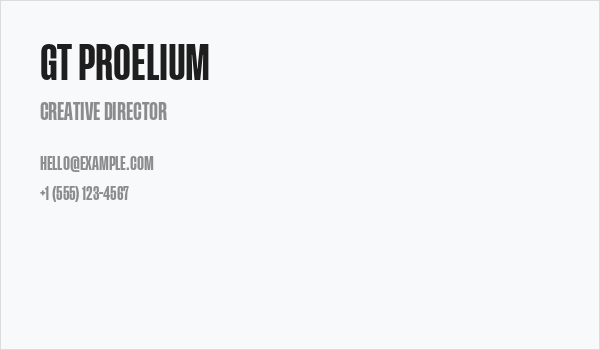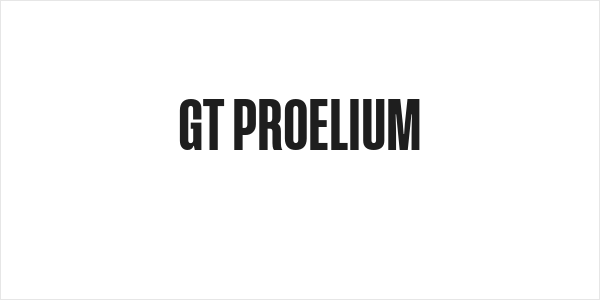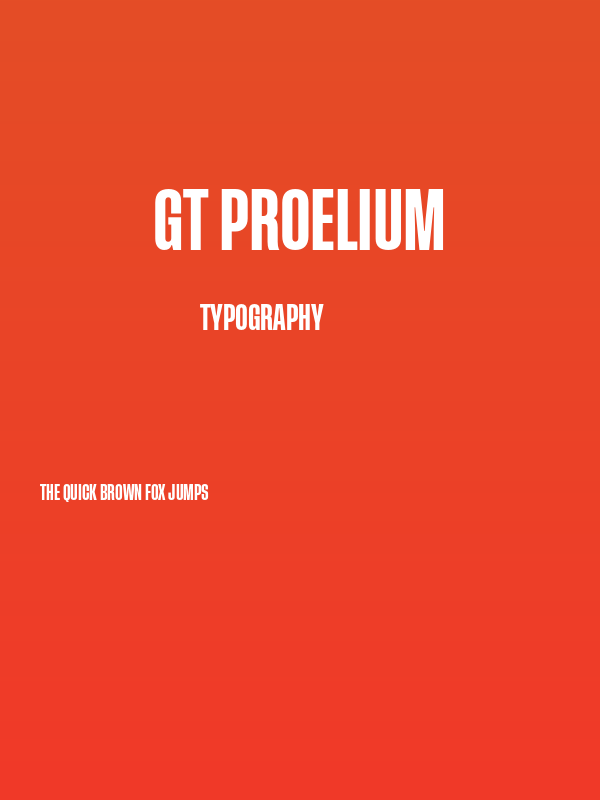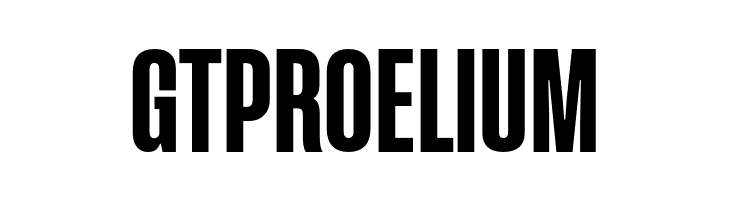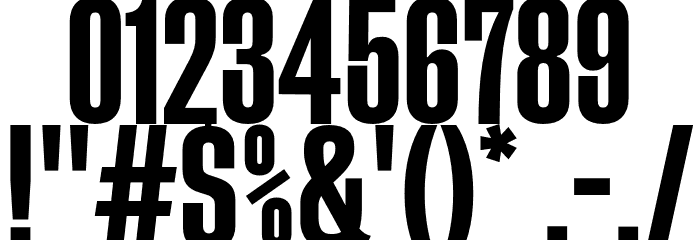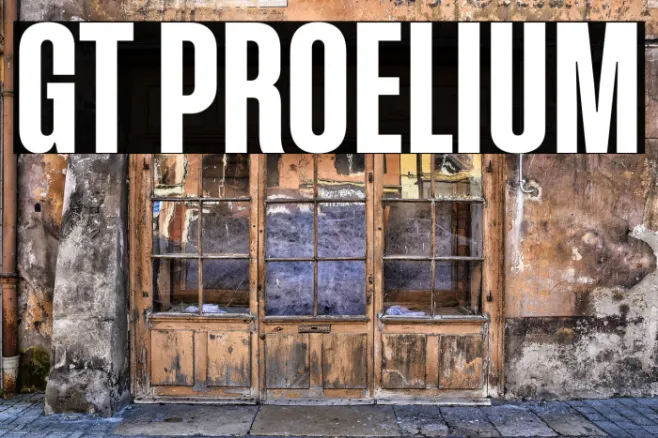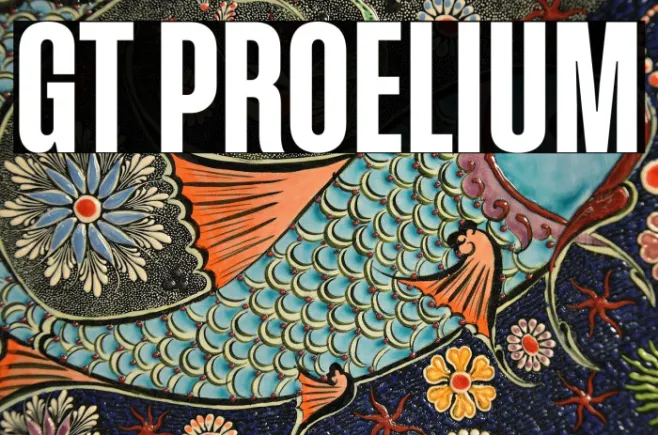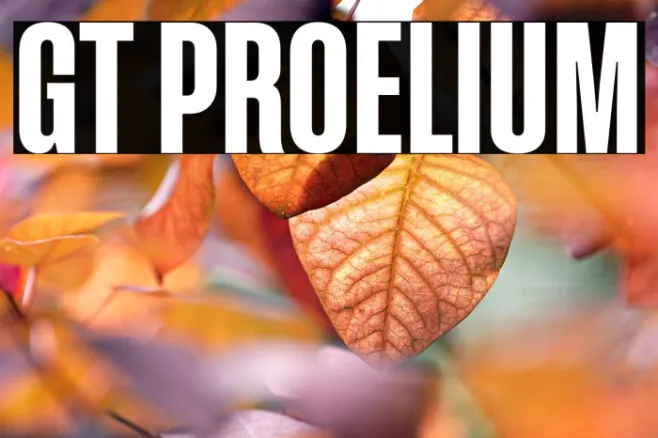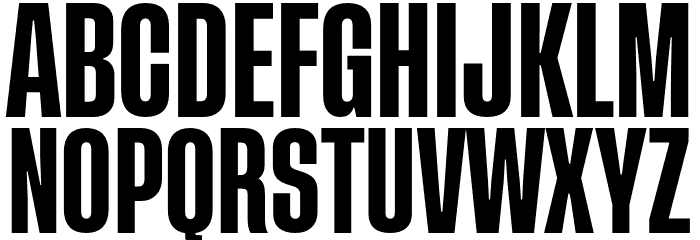
GT Proelium Font
GT Proelium Description
A bold, condensed sans-serif font with a strong, impactful presence, suitable for attention-grabbing designs.
| Proposed Projects | Posters, headlines, branding materials. |